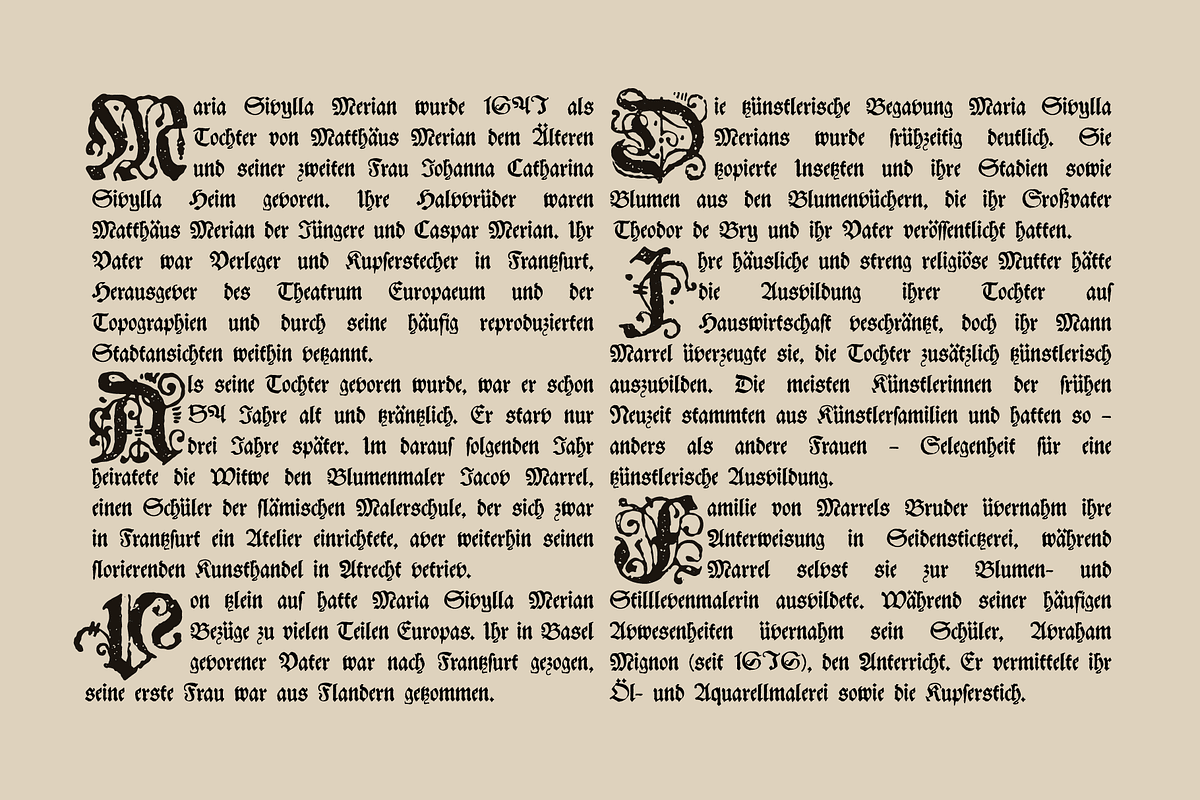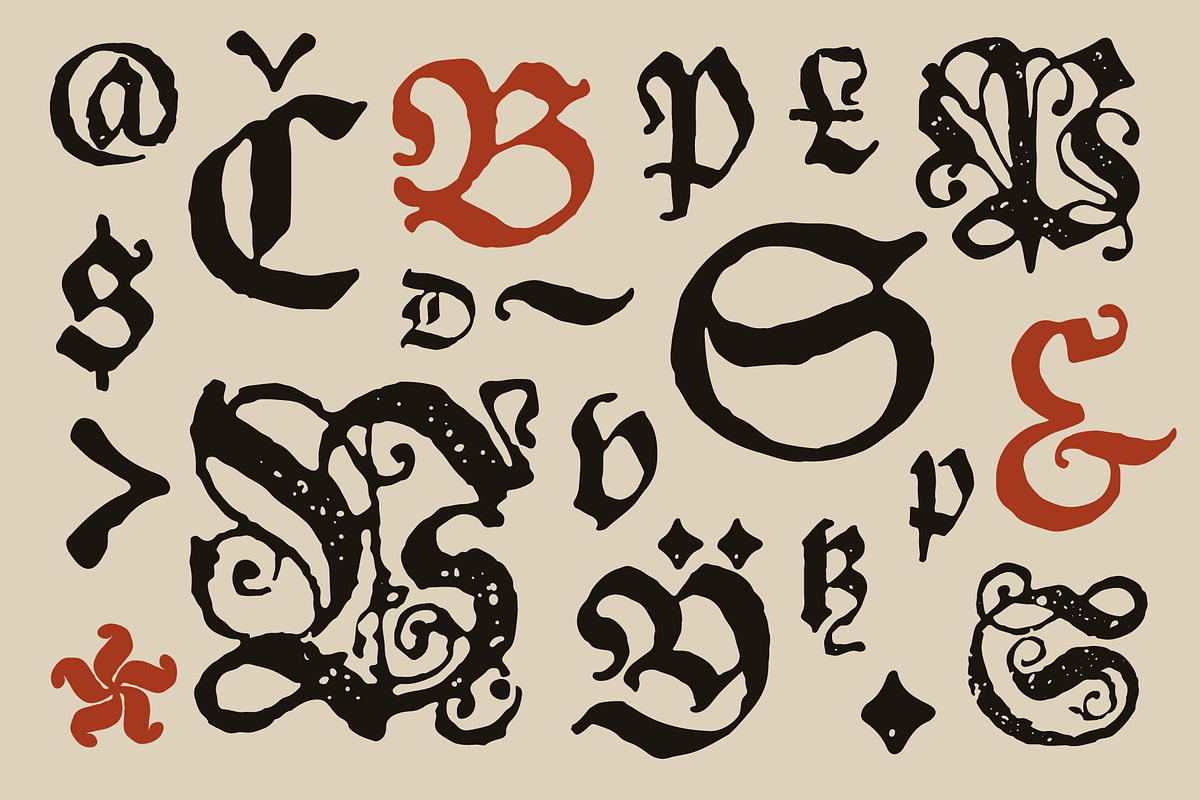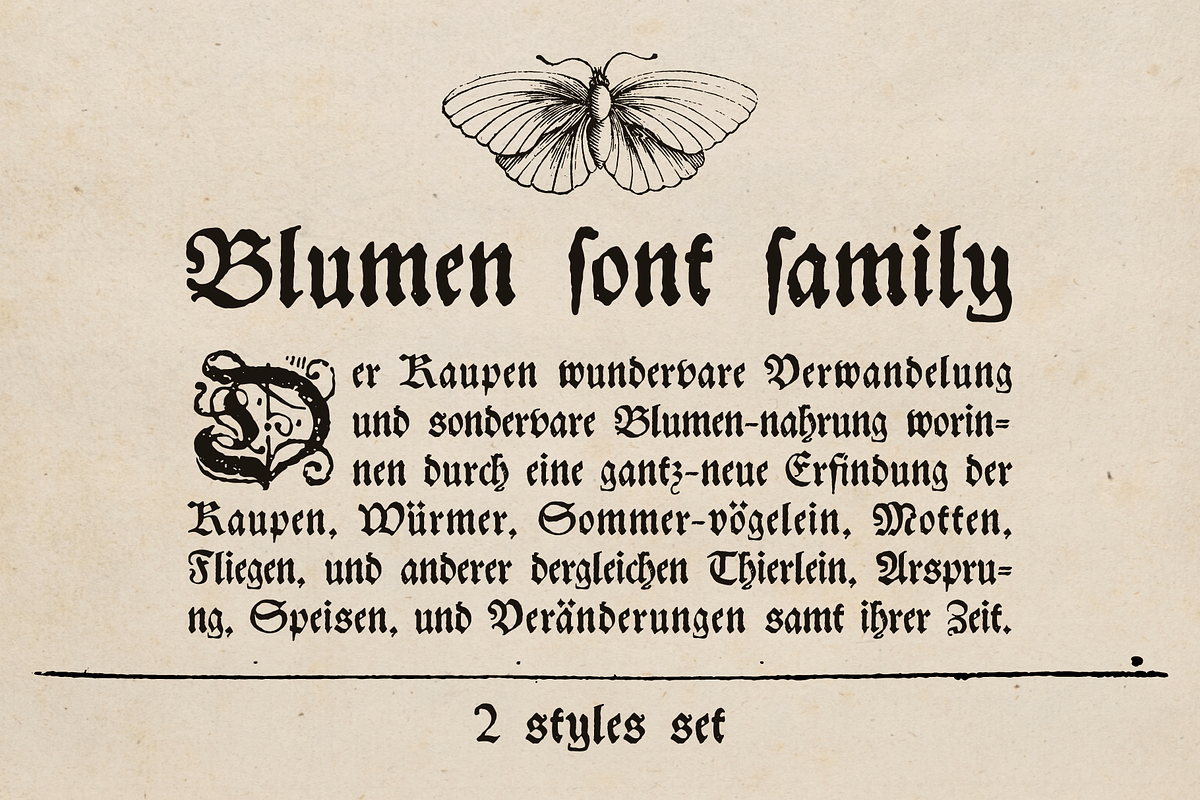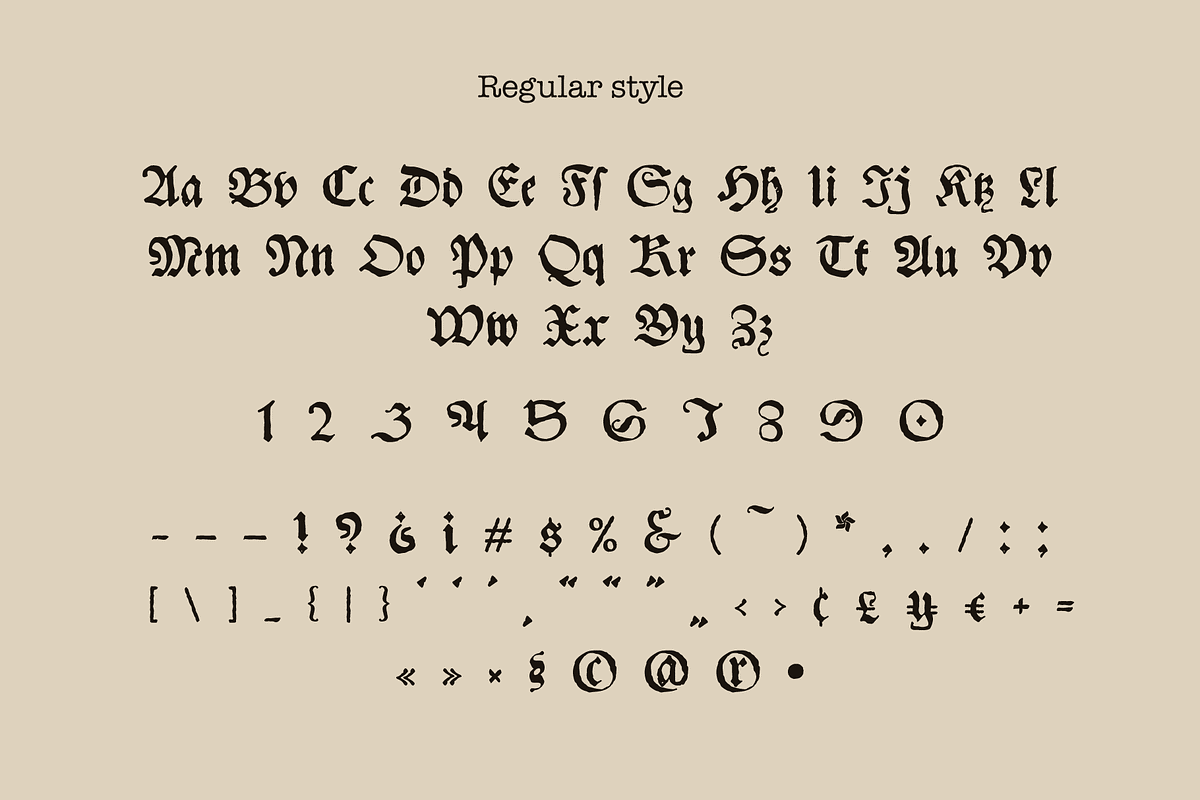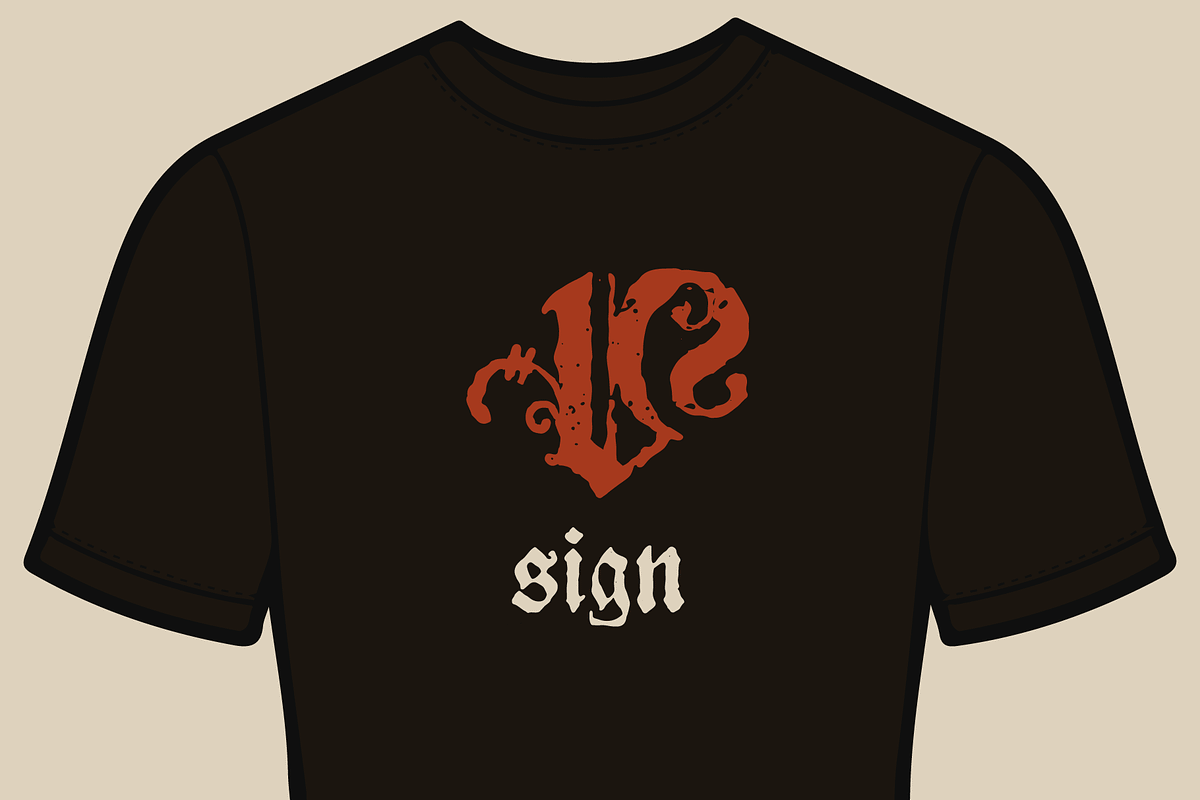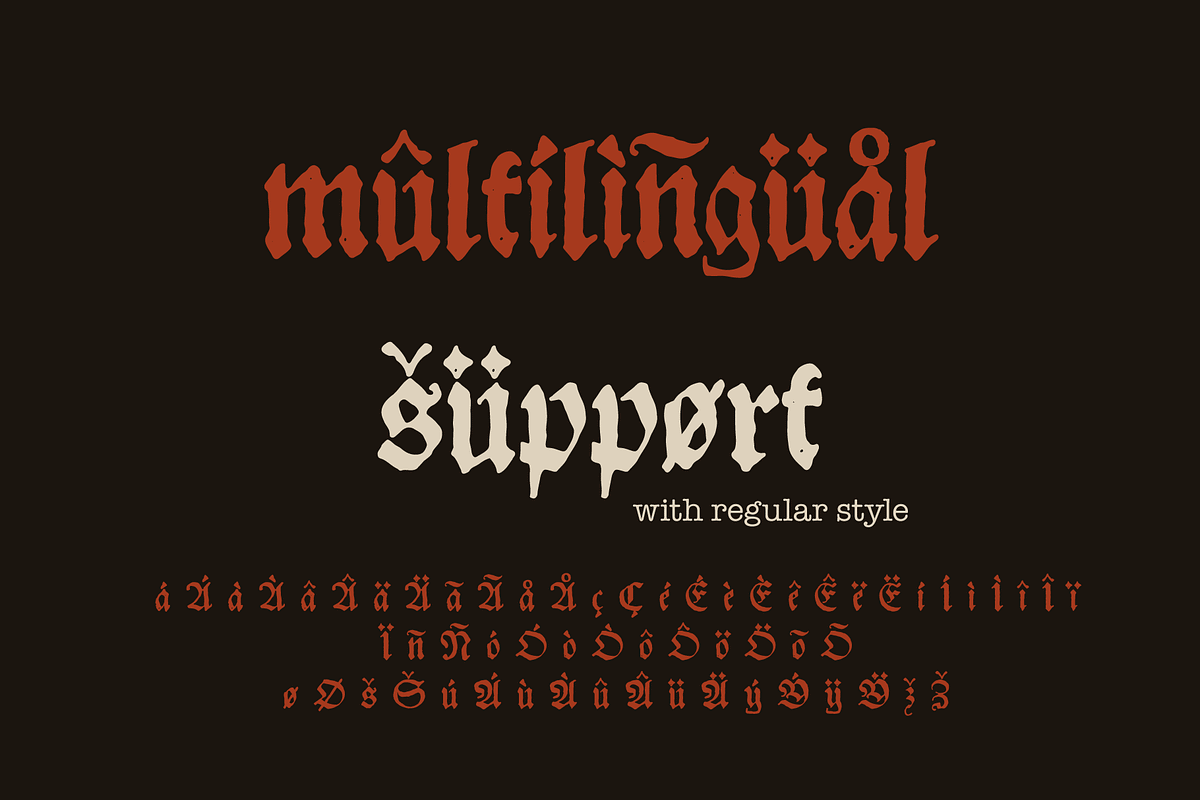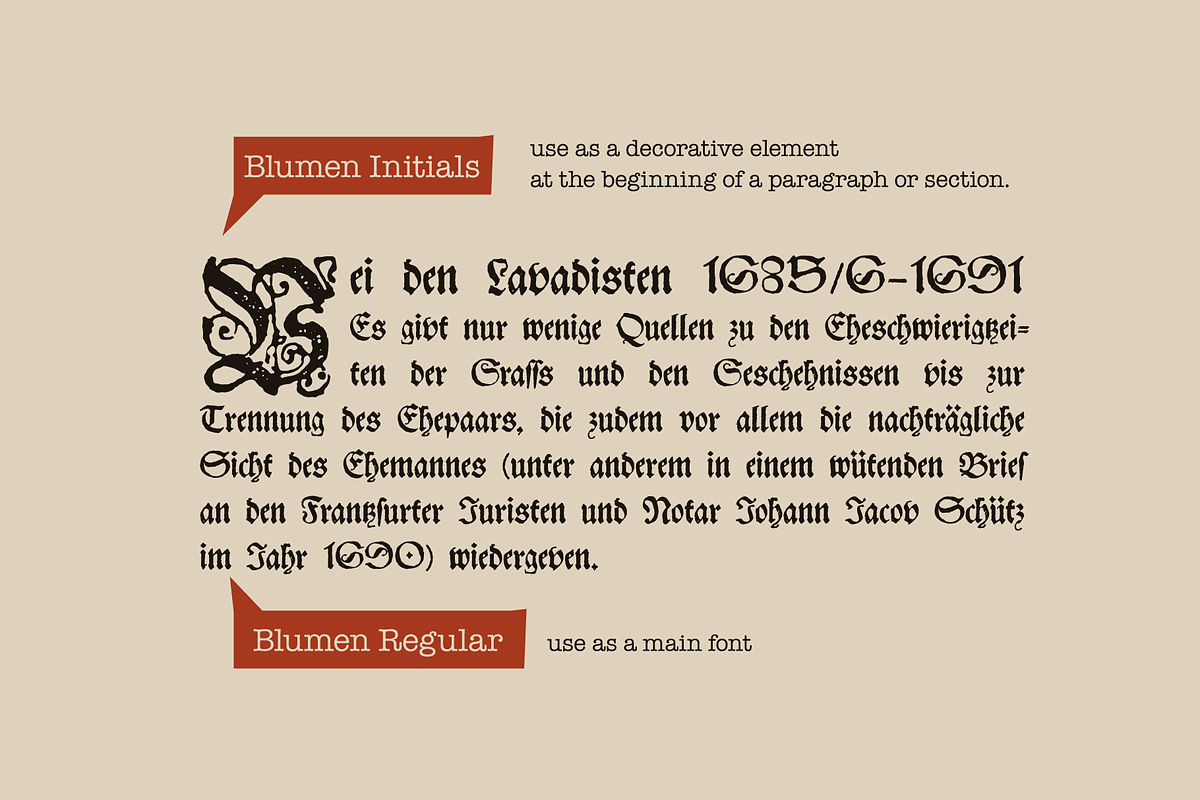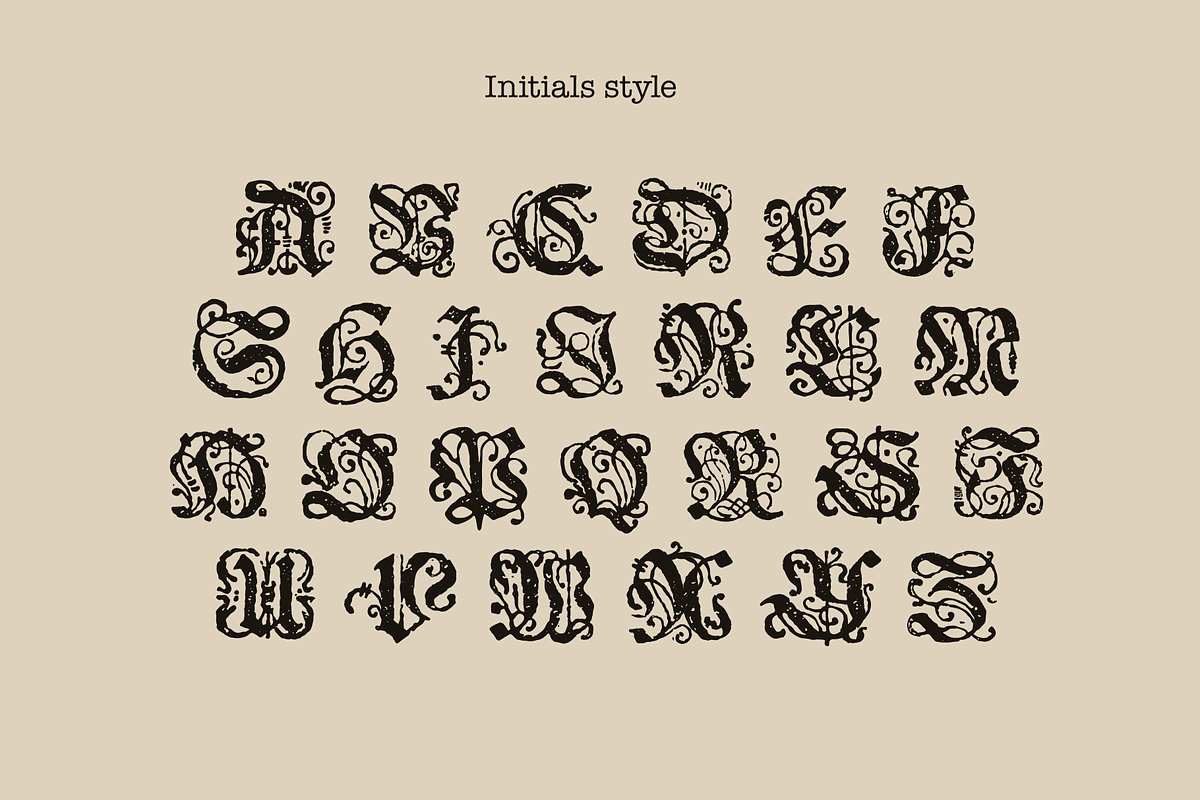
Blumen blackletter font family
This font family based on vintage German book called “Der Raupen wunderbare Verwandlung und sonderbare Blumennahrung.” by Merian, Maria Sibylla and printed in Frankfurt am Mayn in 1683. I manually redesign initials and regular style fonts from this folio. Also, I’ve added some modern symbols.
I'm happy to present to you my new font family. Blumen font family has Initials and Regular styles. It's all you need to precisely imitate medieval style text. Use Drop cap style as a decorative element at the beginning of a paragraph or section, other part of the paragraph should be in Regular style.